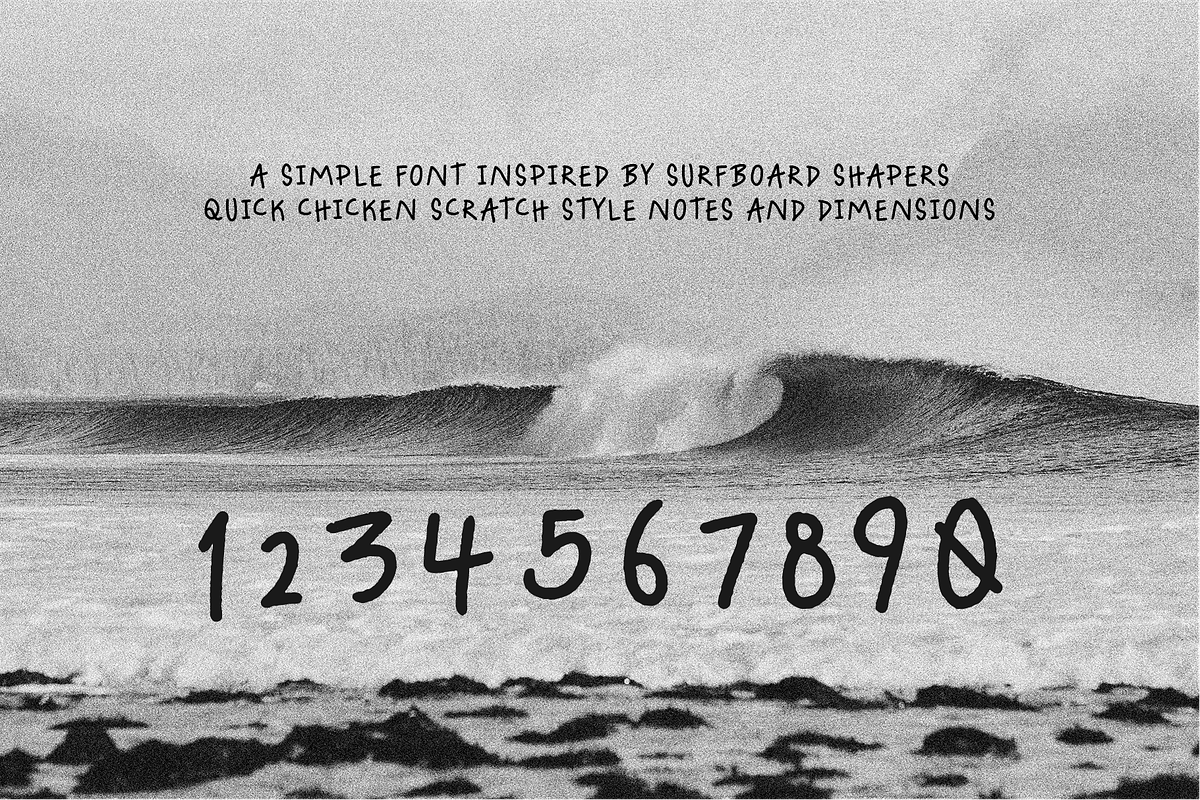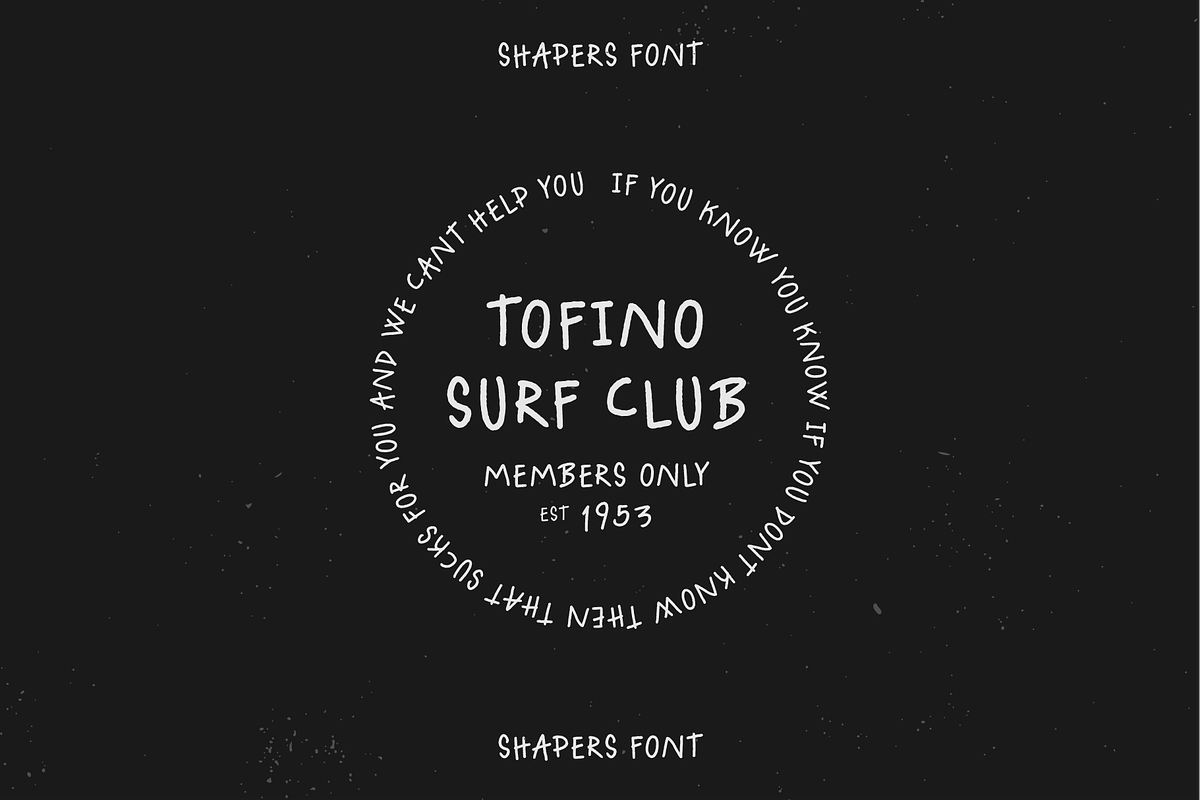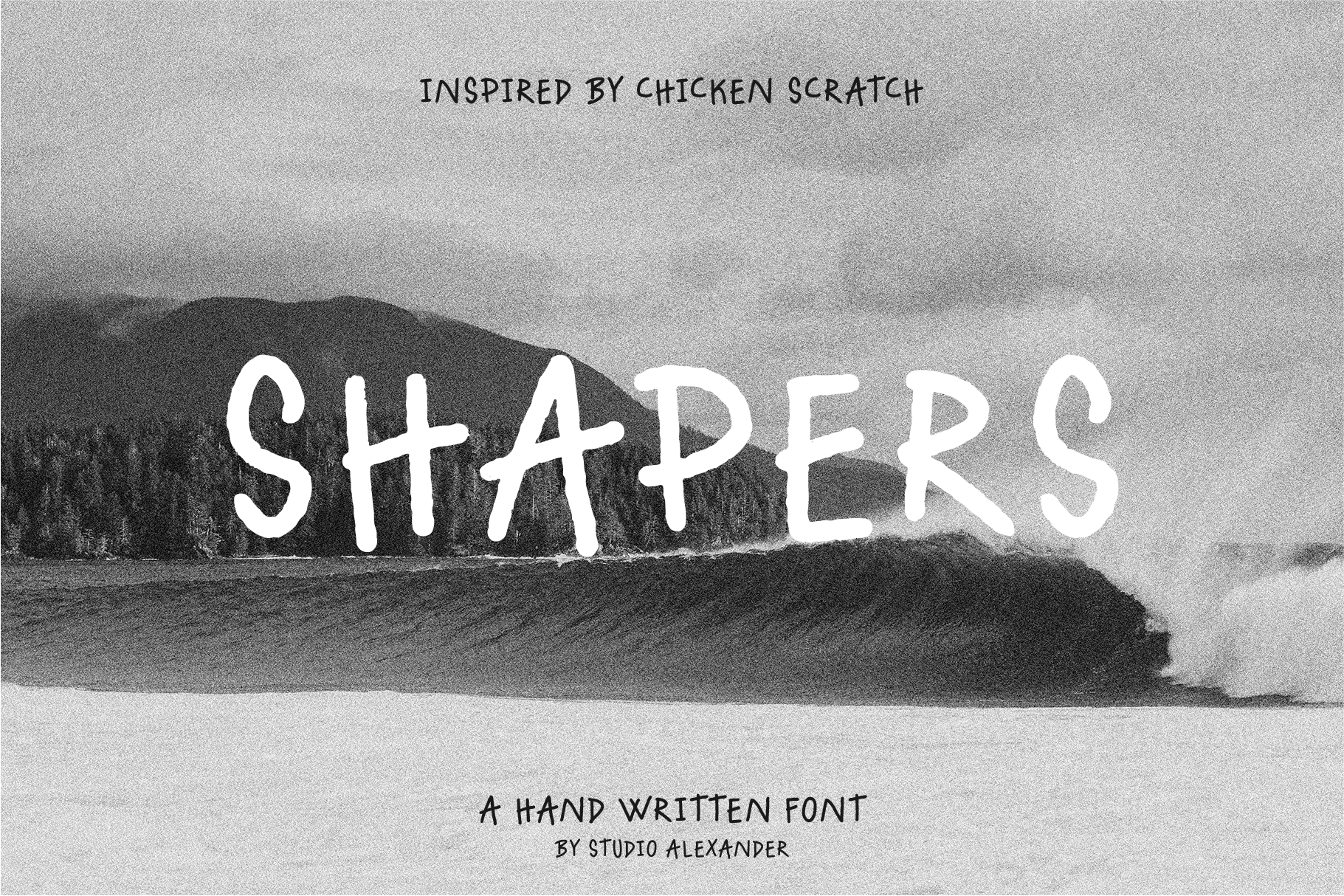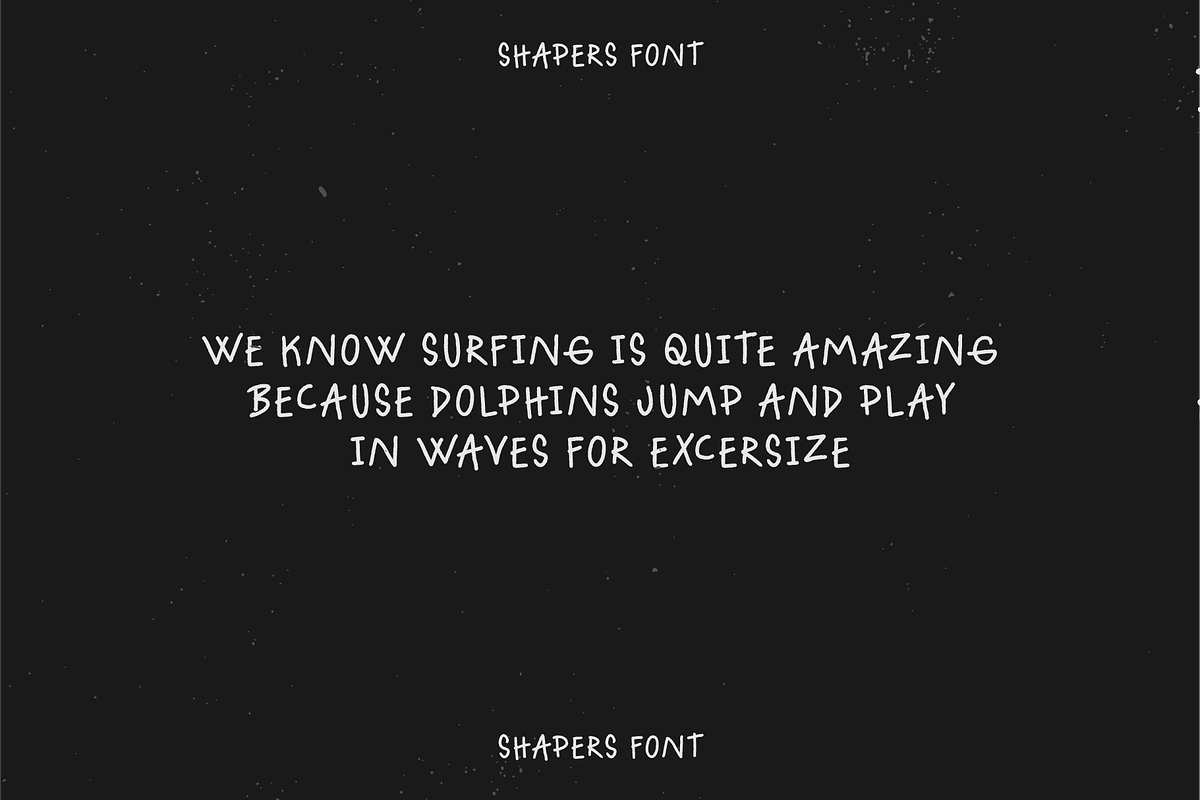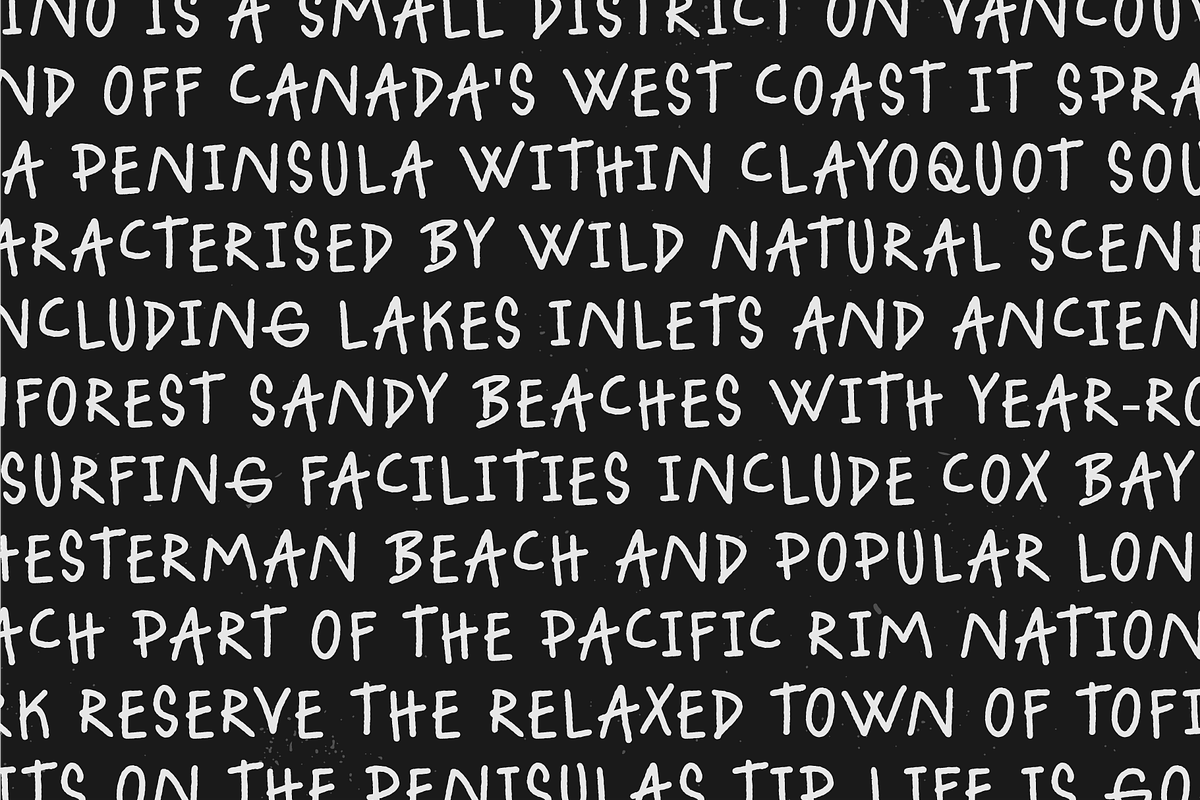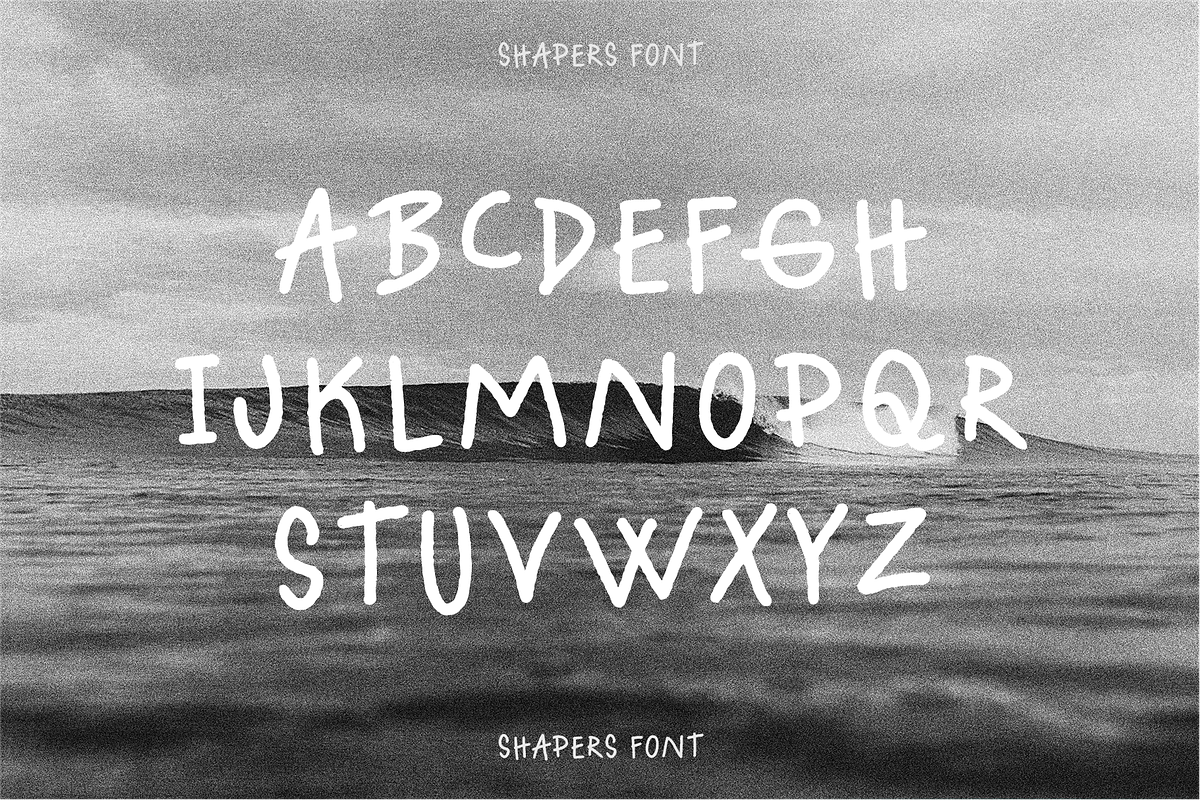
Shapers Font
Shapers is a simple hand drawn font inspired by surfboard shapers quick chicken scratch notes and dimensions. A fun and playful font perfect for branding, logos, packaging, posters and typographic lockups.
Shapers (All caps) Numbers